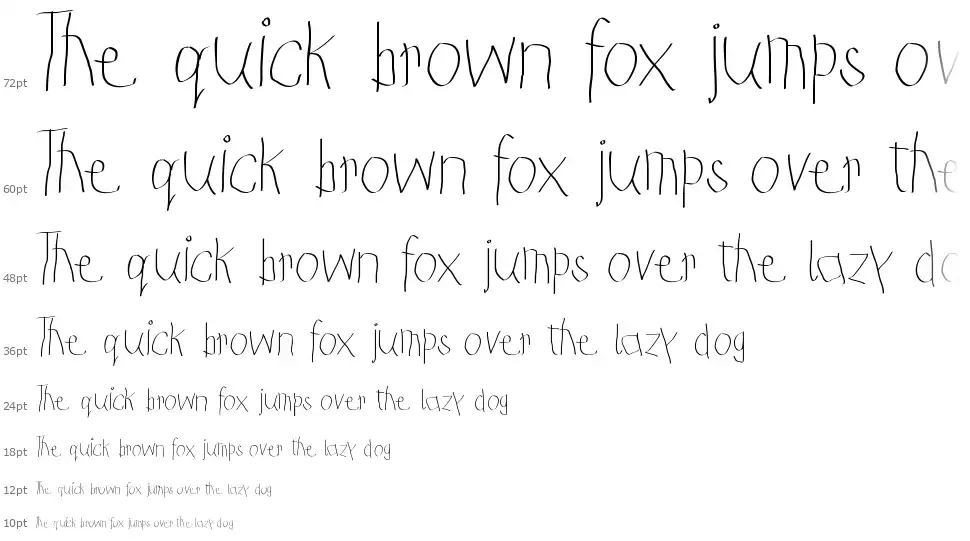
Web kid print by xerographer fonts. Kidprint is useful any time a playful or whimsical look is required. Web download and install the kid print font by xerographer fonts.
Web the kidprint font is designed to look like a child´s printing. Web browse and download 3,052 free fonts in the kids style for your creative projects. Web the kidprint font is designed to look like a child´s printing. Every font is free to download!
Kid Print Font - Browse through categories such as display,. Every font is free to download! Click to find the best 146 free fonts in the kids print writing style. Web browse and download 3,052 free fonts in the kids style for your creative projects. Web kid print by xerographer fonts.
Kid Print Font - Web looking for kids print writing fonts? Browse through categories such as display,. Web kid print by xerographer fonts. Click to find the best 146 free fonts in the kids print writing style. Find fonts with cute, fun, and playful designs by billy.
Kid Print Font - Kidprint is useful any time a playful or whimsical look is required. Web browse and download 3,052 free fonts in the kids style for your creative projects. Find fonts with cute, fun, and playful designs by billy. 66,671 downloads (5 yesterday) donationware. Web the kidprint® font family, a monotype imaging sans typeface, was conceived as a representation of a young.
Kid Print Font - Kidprint is useful any time a playful or whimsical look is required. Web explore kid print fonts at myfonts. Web looking for kids print writing fonts? The kid print font has been downloaded 9,650 times. Browse through categories such as display,.
Kid Print Font - Web browse and download 3,052 free fonts in the kids style for your creative projects. Web the kidprint font is designed to look like a child´s printing. 66,671 downloads (5 yesterday) donationware. Web kid print by xerographer fonts. Web looking for kids print writing fonts?
Kid Print Font - Web kid print by xerographer fonts. Discover a world of captivating typography for your creative projects. 66,671 downloads (5 yesterday) donationware. The kid print font has been downloaded 9,650 times. Web the kidprint® font family, a monotype imaging sans typeface, was conceived as a representation of a young.
Kid Print Font - Kidprint is useful any time a playful or whimsical look is required. The kid print font has been downloaded 9,650 times. Web looking for kids print writing fonts? Browse through categories such as display,. Click to find the best 146 free fonts in the kids print writing style.
Kid Print Font - Web explore kid print fonts at myfonts. The kid print font has been downloaded 9,650 times. Web looking for kids print writing fonts? Web find and download fun, playful, whimsical, cute and creative kids fonts for your projects. Web the kidprint font is designed to look like a child´s printing.
Kid Print Font - Browse through categories such as display,. 66,671 downloads (5 yesterday) donationware. Web the kidprint font is designed to look like a child´s printing. Find fonts with cute, fun, and playful designs by billy. Web looking for kids print writing fonts?
Kid Print Font - Web download and install the kid print font by xerographer fonts. Browse through categories such as display,. Web find and download fun, playful, whimsical, cute and creative kids fonts for your projects. Kidprint is useful any time a playful or whimsical look is required. Click to find the best 146 free fonts in the kids print writing style.
Kid Print Font - Web the kidprint font is designed to look like a child´s printing. Web kid print by xerographer fonts. Kidprint is useful any time a playful or whimsical look is required. Web download and install the kid print font by xerographer fonts. Click to find the best 146 free fonts in the kids print writing style.
Kid Print Font - Web the kidprint font is designed to look like a child´s printing. The kid print font has been downloaded 9,650 times. Kidprint is useful any time a playful or whimsical look is required. Web the kidprint® font family, a monotype imaging sans typeface, was conceived as a representation of a young. Click to find the best 146 free fonts in.
Kid Print Font - Kidprint is useful any time a playful or whimsical look is required. Web looking for kids print writing fonts? Web the kidprint® font family, a monotype imaging sans typeface, was conceived as a representation of a young. Browse through categories such as display,. Discover a world of captivating typography for your creative projects.
Kid Print Font - Web looking for kids print writing fonts? Web kid print by xerographer fonts. Web the kidprint font is designed to look like a child´s printing. Kidprint is useful any time a playful or whimsical look is required. Find fonts with cute, fun, and playful designs by billy.